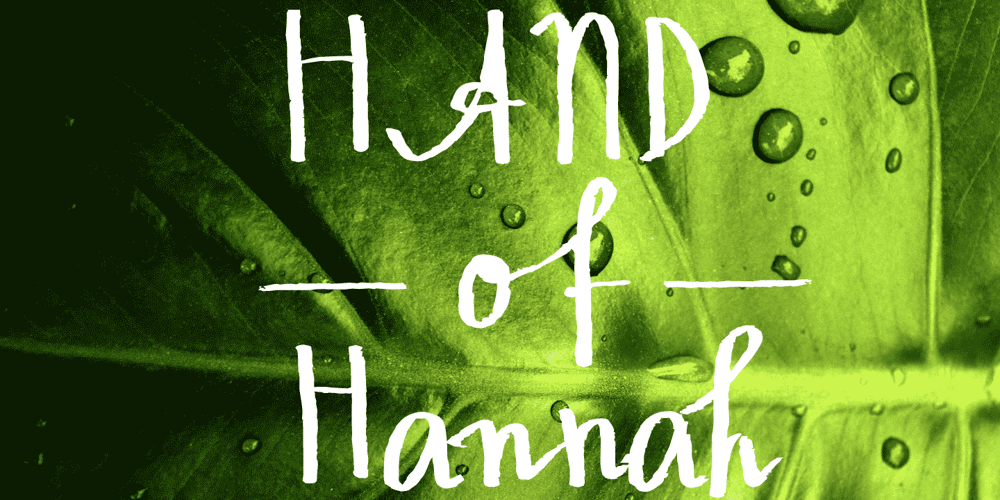
Hand of Hannah
Hand of Hannah font
Hand of Hannah Font Family was designed by Manuel Viergutz and published by TypoGraphicDesign. Hand of Hannah contains 9 styles and family package options. The typeface Hand of Hannah is designed from 2021 for the font foundry Typo Graphic Design by Hannah Englisch & Manuel Viergutz.The cha­rac­ter of the hand­written script type­face is rough, ruggend and raw. With state-of-the-art OpenType-Feature (like Con­text­ual Alter­na­tes (calt) and Sty­listic Alter­na­tes (salt)). Each upper­case and each lower­case let­ter has auto­ma­ti­cally alter­na­ted two varia­ti­ons to bring humanly-random cha­rac­te­ristics of hand­wri­t­ing to life.4 font-styles (Regular, Bold, Heavy & Icons) with 732 glyphs (Latin 3) incl. 100+ decorative extras like icons, arrows, catch words, dingbats, emojis, symbols, geometric shapes (type the word #LOVE for ♥︎ or #SMILE for ☺ as OpenType-Feature dlig) and stylistic alternates.For use in logos, magazines, posters, advertisement plus as webfont for decorative headlines. The font works best for display size.Have fun with this font & use the DEMO-FONT (with reduced glyph-set) FOR FREE! ■ Font Name: Hand of Hannah■ Font Styles: 4 font-styles (Regular, Bold, Heavy, Icon) + DEMO (with reduced glyph-set)■ Font Cate­gory: Dis­play Script for head­line size■ Font For­mat: .otf (Mac + Win, for Print) + .woff (for Web)■ Glyph Set: 732 glyphs (Latin 3 incl. decorative extras like icons)■ Lan­guage Sup­port: 80 languages: Afrikaans Albanian Asu Basque Bemba Bena Breton Catalan Chiga Colognian Cornish Croatian Czech Danish Dutch English Estonian Faroese Filipino Finnish French Friulian Galician German Gusii Hungarian Indonesian Irish Italian Kabuverdianu Kalenjin Kinyarwanda Latvian Lithuanian Lower Sorbian Luo Luxembourgish Luyia Machame Makhuwa-Meetto Makonde Malagasy Manx Morisyen North Ndebele Norwegian Bokmål Norwegian Nynorsk Nyankole Oromo Polish Portuguese Quechua Romanian Romansh Rombo Rundi Rwa Samburu Sango Sangu Scottish Gaelic Sena Serbian Shambala Shona Slovak Soga Somali Spanish Swahili Swedish Swiss German Taita Teso Turkish Upper Sorbian Uzbek (Latin) Volapük Vunjo Zulu ■ Design Date: 2021 ■ Type Desi­gner: Hannah Englisch, Manuel Viergutz